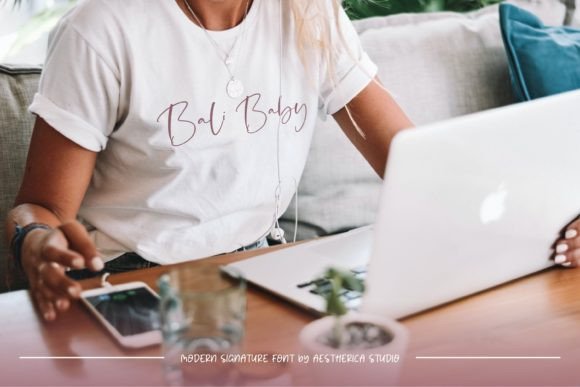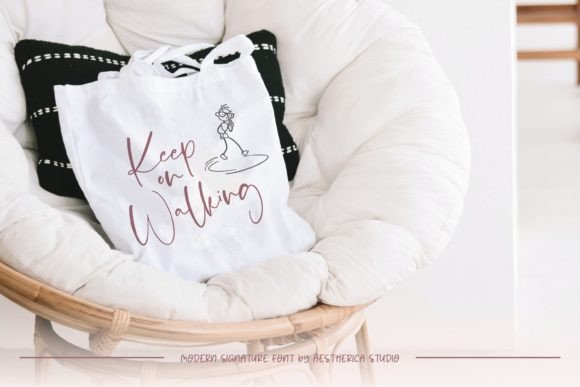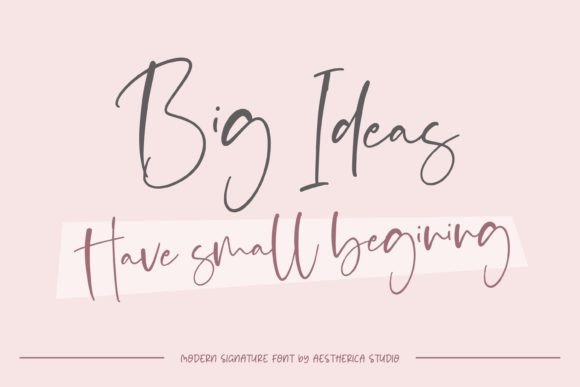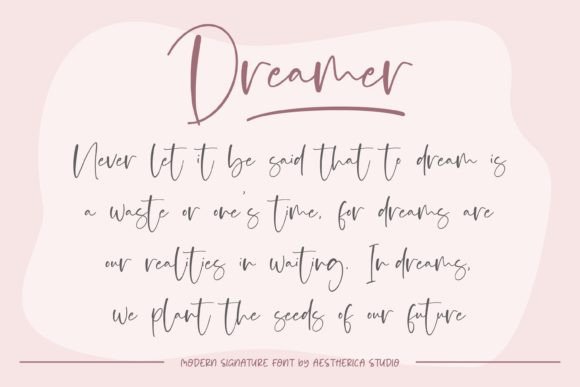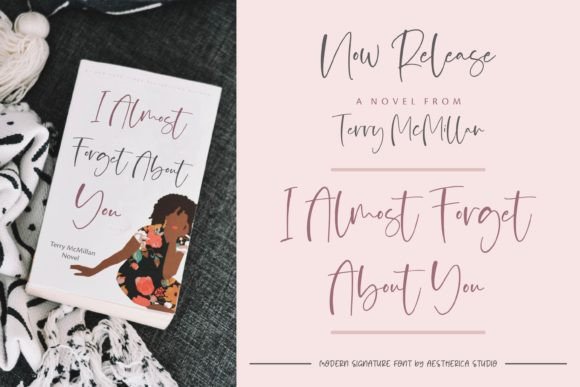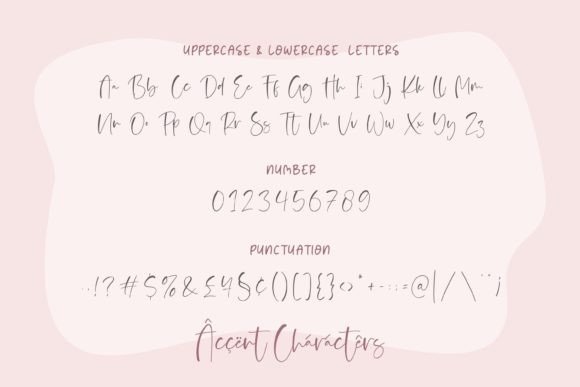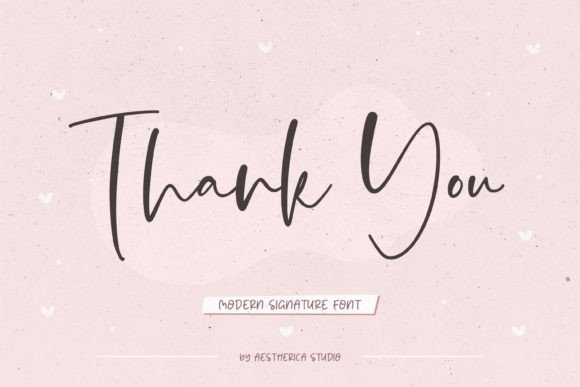
Signatica Font
About Signatica Font
**Signatica** is a captivating handwritten script font characterized by its clear style and dramatic movement. With its distinctive and fluid letterforms, **Signatica** brings a touch of elegance and authenticity to a wide range of design projects. Its versatile nature makes it an excellent choice for branding projects, logos, wedding designs, social media posts, advertisements, product packaging, product designs, labels, photography watermarks, invitations, stationery, and any project that requires a handwritten touch.
The font’s unique charm lies in its ability to convey both clarity and movement simultaneously. Its clear style ensures legibility, making it suitable for various applications, while its dramatic movement adds a dynamic and expressive flair to the text. **Signatica** excels in projects where a balance between readability and artistic expression is essential, making it a valuable asset for designers seeking a font that combines clarity with a touch of creativity.
Whether used for branding or personal invitations, **Signatica** elevates the overall aesthetic of the design, making it more engaging and visually appealing. Its handwritten touch adds a sense of authenticity, creating a genuine connection with the audience. The font’s versatility allows it to adapt seamlessly to different themes and concepts, enhancing the impact of the text and ensuring that it leaves a lasting impression.
Embrace the clear style and dramatic movement of **Signatica** in your design projects, and witness how it enhances the visual appeal of your creations. Its unique combination of clarity and expressiveness makes it a versatile and eye-catching choice for a wide array of applications. With **Signatica**, your designs come to life with a sense of elegance and artistic flair, captivating viewers and leaving a memorable impression of creativity and sophistication.